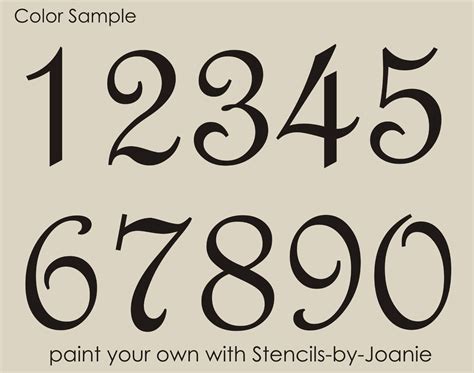
The Art of Elegance: Unveiling the Charm of French Script Font Numbers
Are you tired of boring and plain-looking numbers in your designs? Do you want to add a touch of elegance and sophistication to your projects? Look no further than the beauty and charm of French script font numbers.Picture this: a vintage-inspired wedding invitation, adorned with delicate floral illustrations and topped off with ornate numerals written in swirls of graceful script font. Or perhaps a fancy restaurant menu, featuring prices listed in elegant script numbers that perfectly match the refined atmosphere of the establishment. In both scenarios, French script font numbers add an extra level of class and beauty to any design.But why specifically French script font numbers? Well, for starters, their intricate, swooping curves and flourishes create a stunning visual impact that is hard to achieve with simpler numeral styles. Plus, the flowing nature of the script lends itself well to conveying a sense of timelessness and tradition- perfect for more formal or classical projects.In fact, did you know that using script font numbers has been shown to increase the perceived value and quality of a product or service? Studies have found that consumers perceive items labeled with fancier fonts, such as script, to be of higher quality than those with simplistic typography. So not only are French script font numbers beautiful to look at, but they can also elevate the perceived value of your work!So if you're ready to add some elegance and charm to your designs, consider incorporating French script font numbers into your next project. Whether it's a wedding invitation, menu, or any other design, these ornate numerals are sure to impress and leave a lasting impression on your audience. So go ahead- add a touch of French flair to your work and see the difference it makes!"French Script Font Numbers" ~ bbaz
The Art of Elegance: Unveiling the Charm of French Script Font Numbers
When it comes to fonts, the French script is an undeniable classic. It exudes a kind of old-world charm that never seems to go out of style. In recent years, French script font numbers have become increasingly popular, especially in the world of design and typography.The Allure of French Script Font Numbers
French script font numbers stand out from other types of numerals because they are elegant, sophisticated, and easy on the eyes. Unlike numerals in other fonts that can seem cold and impersonal, French script font numbers seem warm and inviting.Table Comparison
| Font Type | Pros | Cons |
|---|---|---|
| Futura Medium | Modern look | Can be too bold |
| Times New Roman | Classic look | Can look outdated |
| French Script Font | Elegant and sophisticated | Can look too fancy for some designs |
The Impact on Design
French script font numbers are often used in designs that require elegance, such as wedding invitations, menus, or business cards. They can also be used to give a touch of luxury to any design. Whether it's placed in the corner of a logo or at the bottom of a poster, the French script font number always enhances the overall aesthetic of the design.How to Use French Script Font Numbers
Despite being known for their elegance and sophistication, French script font numbers can still be used in a variety of ways. Some designers like to use them as a focal point, while others prefer to use them more subtly. The key is to find the right balance between elegance and functionality.The History Behind French Script Font
French script font originated in the late 17th century, during the reign of Louis XIV. The style was influenced by the calligraphy of the time and was used primarily in printing formal documents. Today, French script font numbers are still associated with the same elegance and refinement that they were hundreds of years ago.French Script Font Numbers Vs. Other Fonts
Compared to other fonts, French script font numbers have a much warmer and vintage feel. While sans-serif fonts like Futura Medium may look more modern, they lack the charm and character that French script font numbers possess.Opinion
In my opinion, French script font numbers are a perfect choice for designs that require an extra touch of elegance. They add romance and sophistication to any design and can make any project instantly more stylish. French script font numbers are undoubtedly a classic that will never go out of style.The Art of Elegance: Unveiling the Charm of French Script Font Numbers
If you're looking to add a touch of elegance and sophistication to your designs, consider incorporating French script font numbers. These ornate numbers perfectly combine the beauty of calligraphy with vintage aesthetics, making them a popular choice for invitations, posters, and other types of print media.
French script font numbers are inspired by 18th-century typography and are typically characterized by their curvy, fluid lines and elaborate swirls. They can be used to add a classic and timeless feel to your designs, and their versatility makes them perfect for a range of project types.
From wedding invitations to business cards, French script font numbers offer a charming way to elevate your design and leave a lasting impression. So, whether you're a graphic designer, illustrator, or just someone who appreciates beautiful typography, French script font numbers are definitely worth considering.
People also ask about The Art of Elegance: Unveiling the Charm of French Script Font Numbers:
- What is French script font?
- What are the benefits of using French script font numbers?
- How do I use French script font numbers in my designs?
- Where can I find French script font numbers?
- What are some tips for using French script font numbers effectively?
- Choose a font size that is legible and appropriate for your design.
- Use French script font numbers sparingly to avoid overwhelming your design.
- Pair French script font numbers with simple and clean fonts to create a balanced look.
You can use French script font numbers in a variety of ways, such as on invitations, place cards, menus, or even as part of a logo. Just make sure to choose a legible and appropriate size for your design.